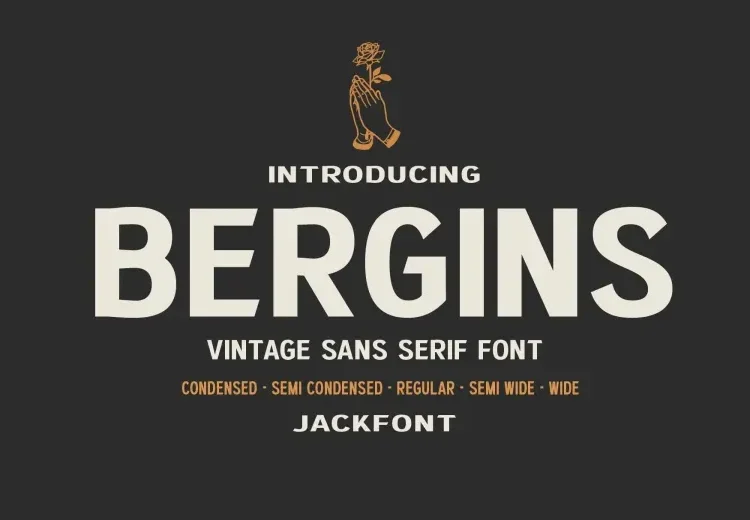
Bergins Font
Bergins is a sophisticated modern grotesque sans serif typeface that stands out with its contemporary design and meticulous craftsmanship. This font embodies a blend of traditional grotesque style with a fresh, modern aesthetic, designed to captivate and engage audiences across various platforms and applications.
Modern Aesthetic
Bergins presents a clean and precise design, characterized by its smooth curves and exacting strokes. This modern aesthetic not only makes it visually appealing but also ensures high readability across different sizes and mediums. Whether used for large headlines or small body text, Bergins maintains its clarity and impact, making it a versatile choice for numerous design projects.
Versatility Across Applications
One of Bergins’ most notable features is its versatility. This typeface excels in various design environments, from printed materials like brochures and posters to digital platforms such as websites and mobile applications. Its contemporary style makes it ideal for a range of uses, including branding, editorial design, and user interfaces. Bergins effortlessly adapts to different design contexts, enhancing both functionality and visual appeal.
Designed for Accessibility and Usability
Bergins was created with both seasoned designers and those new to the field in mind. Its intuitive design process simplifies the creation of various typographic layouts, making it accessible to users at all skill levels. The font’s straightforward nature allows for easy integration into projects, ensuring that even those with minimal design experience can achieve professional results.
Blending Tradition with Modernity
Bergins skillfully combines traditional grotesque elements with a modern twist, offering a typeface that respects classic design principles while embracing contemporary trends. This balance of tradition and innovation makes Bergins an essential tool for modern design needs, providing both functionality and elegance.
Final Thoughts
Bergins is more than just a typeface; it is a cornerstone for contemporary sans serif design. Its functionality, grace, and ease of use make it an invaluable asset for a wide range of creative projects. Whether you are working on branding, advertising, or digital content, Bergins provides the perfect blend of style and practicality to elevate your designs.